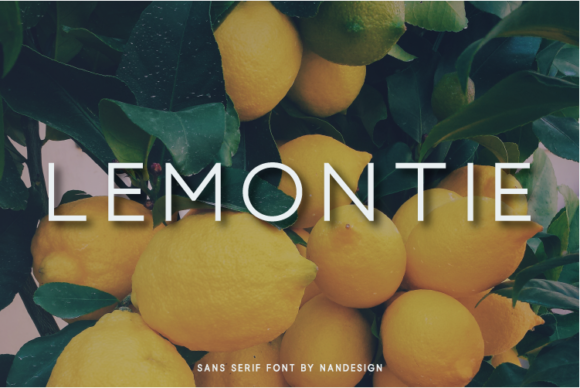
Journey into a world of typographic elegance with Lemontie, the exquisite sans serif font crafted by Nan Design. This font exudes a captivating allure that will transform your digital creations into masterpieces of visual eloquence. Its carefully crafted curves and precise lines dance harmoniously, captivating your audience with their graceful poise.
Lemontie's versatility shines brightest on Instagram, where it has become the font of choice for those seeking to elevate their visual presence. Each character in this font family is a work of art, designed to command attention and leave a lasting impression. Whether you're crafting eye-catching posts, captivating stories, or engaging reels, Lemontie will elevate your content to new heights of sophistication and engagement.
With its perfectly balanced mix of the smooth and sharp, Lemontie effortlessly complements any design need. Its clean lines and crisp edges lend a modern and minimalist aesthetic to your projects, while its subtle curves add a touch of warmth and personality. Whether you're designing logos, website layouts, or marketing materials, Lemontie will seamlessly integrate into your vision, enhancing your message with its timeless elegance.
But Lemontie's charm extends far beyond the confines of Instagram and graphic design. Its allure captivates writers, bloggers, and content creators alike, providing a unique voice to their written works. The font's readability and clarity make it a joy to read, inviting your audience to delve deeper into your content. With Lemontie, your words will dance off the screen, captivating readers with their grace and eloquence.
Lemontie is more than just a font; it's an experience. Its beauty transcends the digital realm, leaving an indelible mark on your audience. Its timeless appeal ensures that your creations will remain relevant and engaging for years to come. Whether you're a seasoned designer, a budding entrepreneur, or simply someone with a passion for aesthetics, Lemontie is the perfect font to elevate your work and leave a lasting impression.